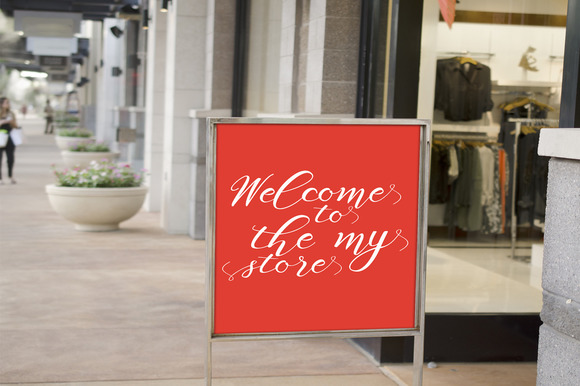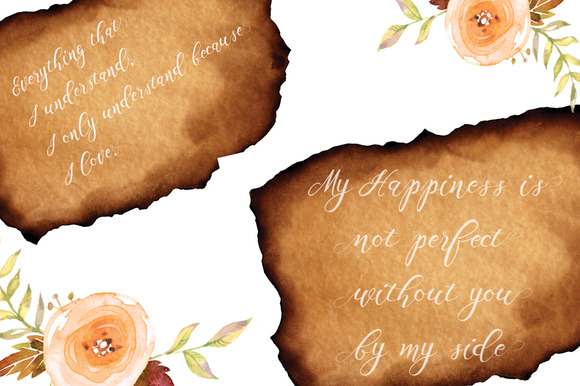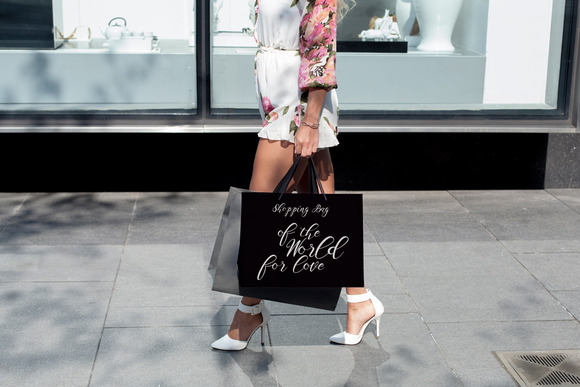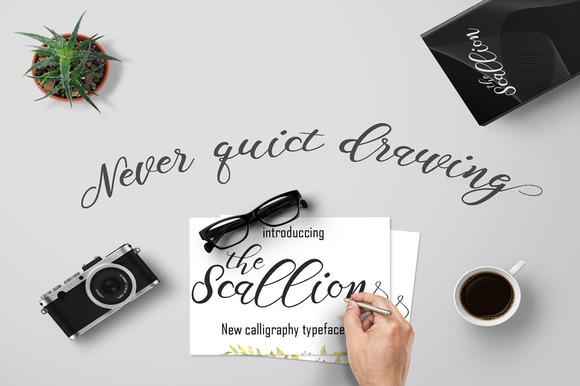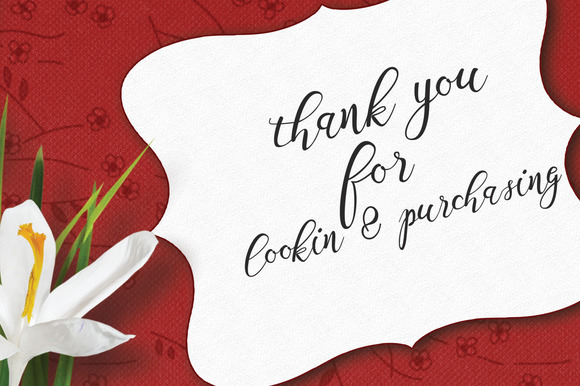
Introduction to Scallion Font
Have you ever sat down to work on a creative project, only to find that the right font is just out of reach? That’s where the Scallion Font comes in – a beautiful, elegant handwritten typeface that adds a touch of sophistication to any design. With its modern calligraphy style, this font feels incredibly natural and versatile, making it the perfect design resource for a wide range of creative projects.
One of the things that sets Scallion Font apart is its high-quality aesthetic, which is perfect for designs that require a transparent background or a subtle, understated look. Whether you’re working on a personal project or a client-based design, this font is sure to elevate your work and make it stand out from the crowd.
Key Features of Scallion Font
- High-quality design resource suitable for creative projects, offering a unique and stylish look.
- Transparent background option, enabling seamless integration with various design elements and backgrounds.
- Supports a wide range of languages, making it a versatile choice for international creative projects.
- Unique characteristics, such as its distinctive style and elegant feel, set it apart from other fonts, making it a valuable design resource.
Honest Review: Scallion Font
I recently came across the Scallion Font while searching for a unique design resource for a creative project. After giving it a try, I wanted to share my honest thoughts on this free download.
- ✨ High-quality typography: The Scallion Font features clean and modern letterforms that are perfect for a variety of design applications.
- ✨ Versatile: This font can be used for both digital and print projects, making it a great addition to any designer’s toolkit.
- ✨ Easy to read: The font’s clear and open design makes it easy to read, even at smaller sizes.
- ⚠️ Limited language support: Unfortunately, the Scallion Font only supports the Latin alphabet, which may be a concern for designers working on projects that require multiple languages.
- ⚠️ No transparent background option: This may not be a deal-breaker for some designers, but it’s worth noting that the font doesn’t have a transparent background option, which can make it more difficult to use in certain design scenarios.
Overall, the Scallion Font is a solid addition to any designer’s toolkit, offering high-quality typography and versatility. While it may have some limitations, it’s definitely worth checking out for your next creative project.
The Scallion Font is a versatile and stylish design resource that can elevate your creative project. With its high-quality features and transparent background, this font is perfect for designers and artists looking to add a unique touch to their work.
The Scallion Font is perfect for a variety of creative projects, including:
- Graphic design and branding.
- Typography and signage.
- Web design and development.